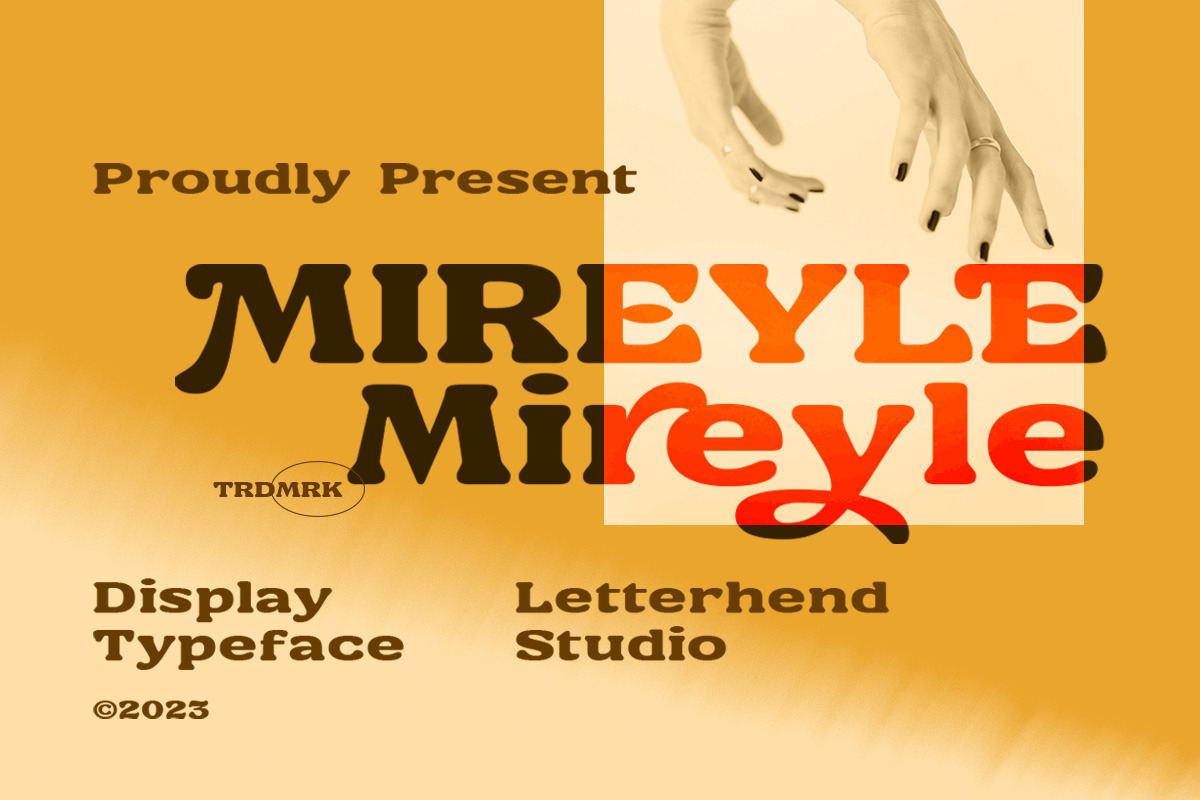
Mireyle Display Font
Let Mireyle add a classic of personality to your designs! This bold font makes it ideal for a variety of design projects, including posters, invitations, greeting cards, logos, and more. Whether you're creating a children's book or designing a catchy brand identity, this font is sure to bring a right answer.